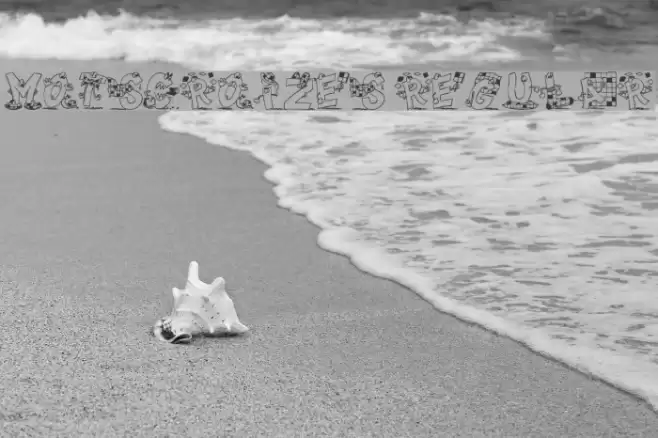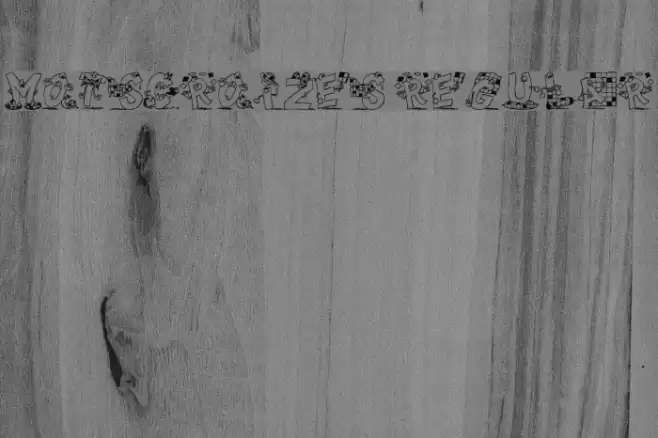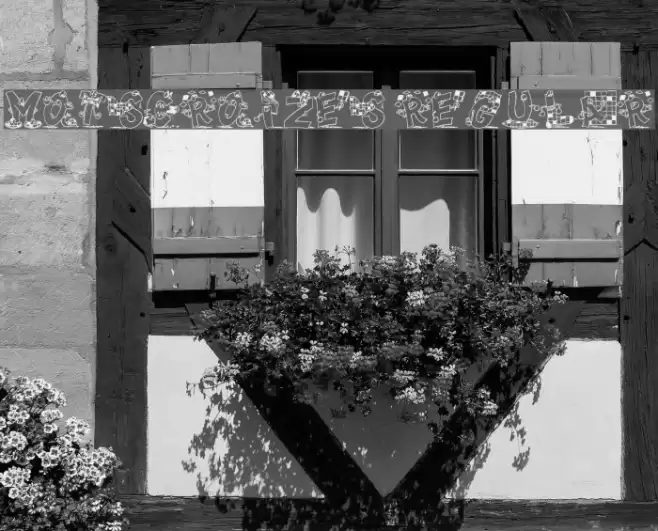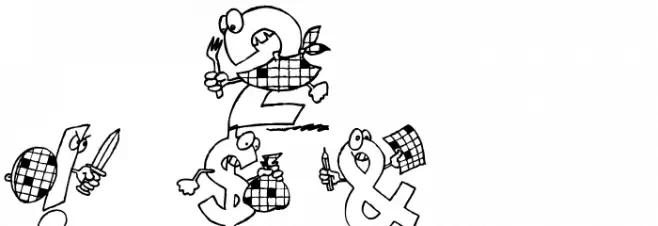
Motscroizes Regular Font
Motscroizes Regular Description
This playful and whimsical font features characters that are creatively designed with cartoon-like elements. Each letter is animated with unique, humorous features, such as arms, legs, and facial expressions, giving it a lively and entertaining appearance. The characters are adorned with checkered patterns and various accessories, adding to their quirky charm. This font is perfect for projects that require a fun and lighthearted touch, making it ideal for children's materials, comic strips, or playful branding. Its distinct style ensures that it stands out, capturing attention with its imaginative and artistic flair.
A whimsical, cartoon-like font with playful, animated characters and checkered patterns from Cartoon fonts.
- Proposed Projects: Ideal for children's books, comic strips, playful branding, and creative posters.